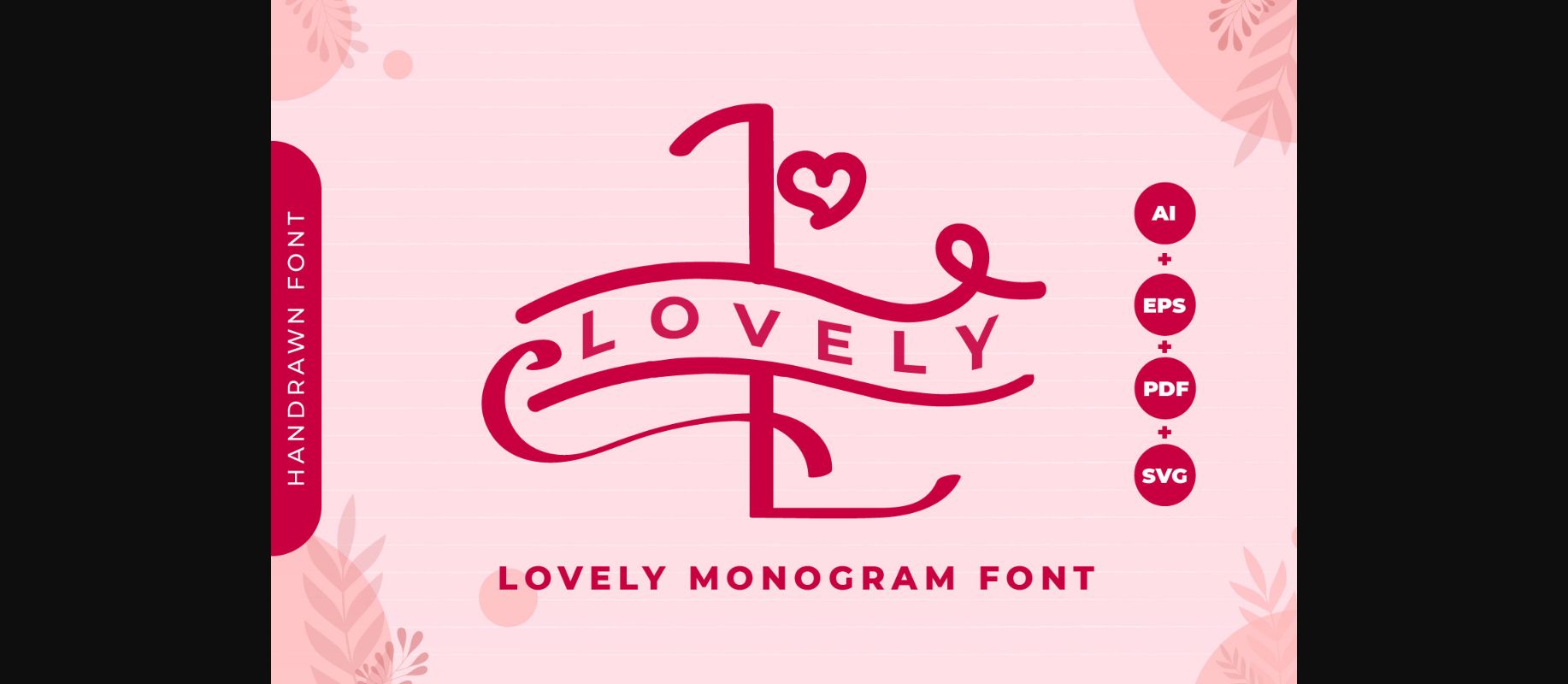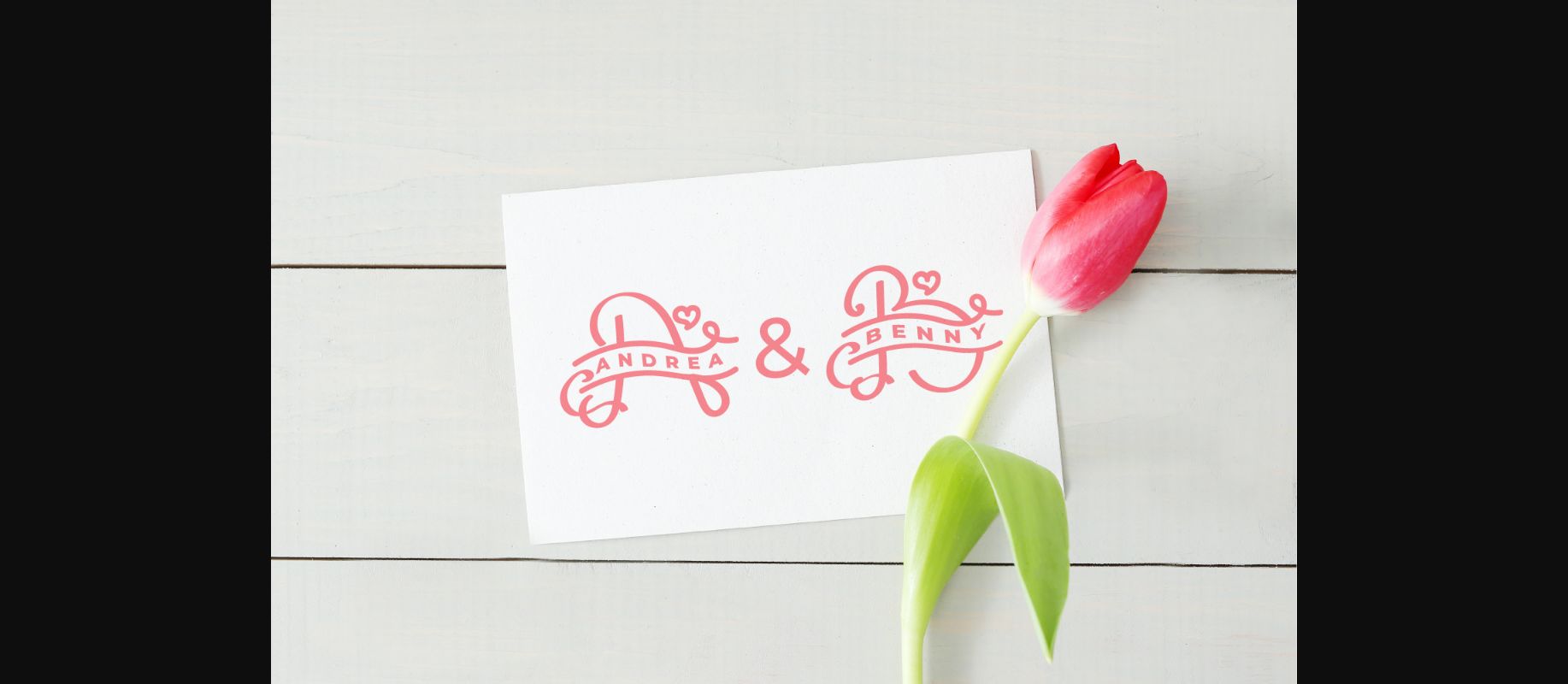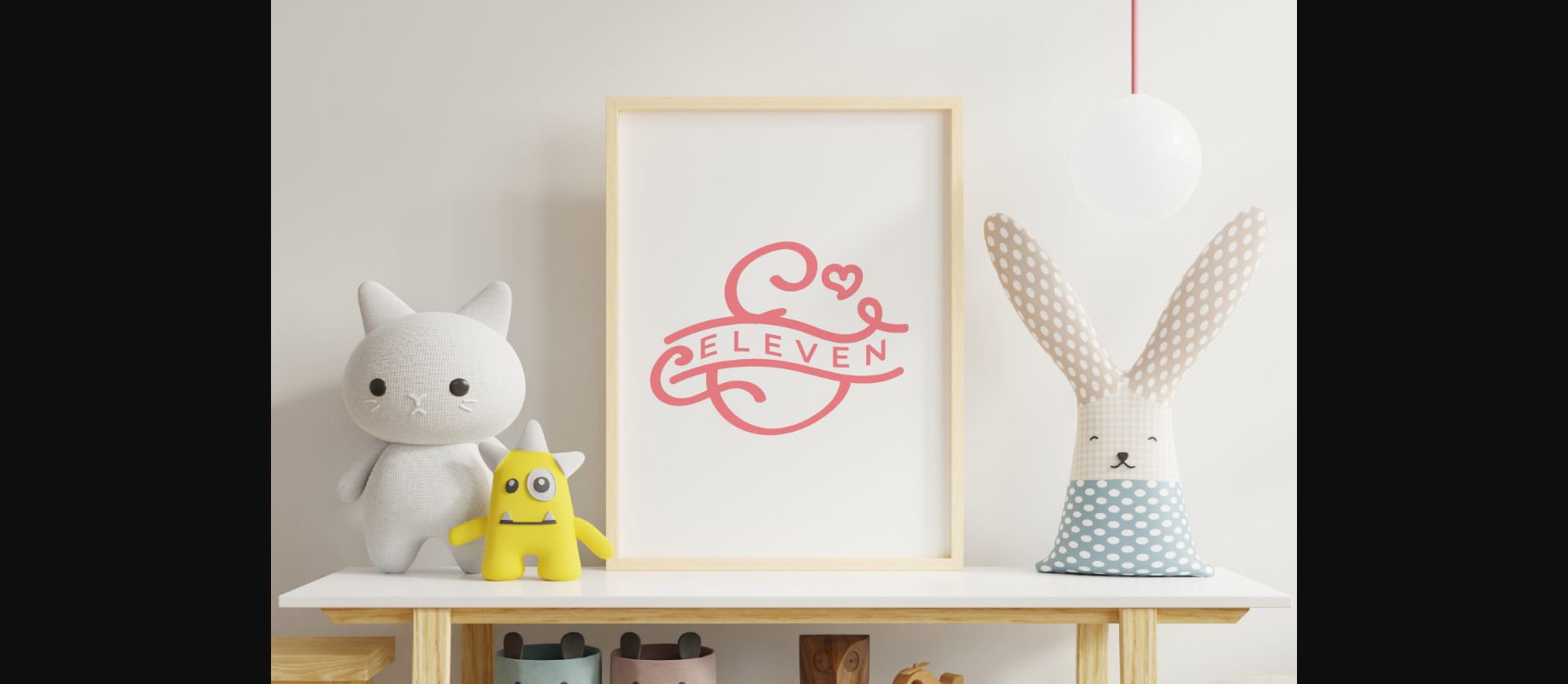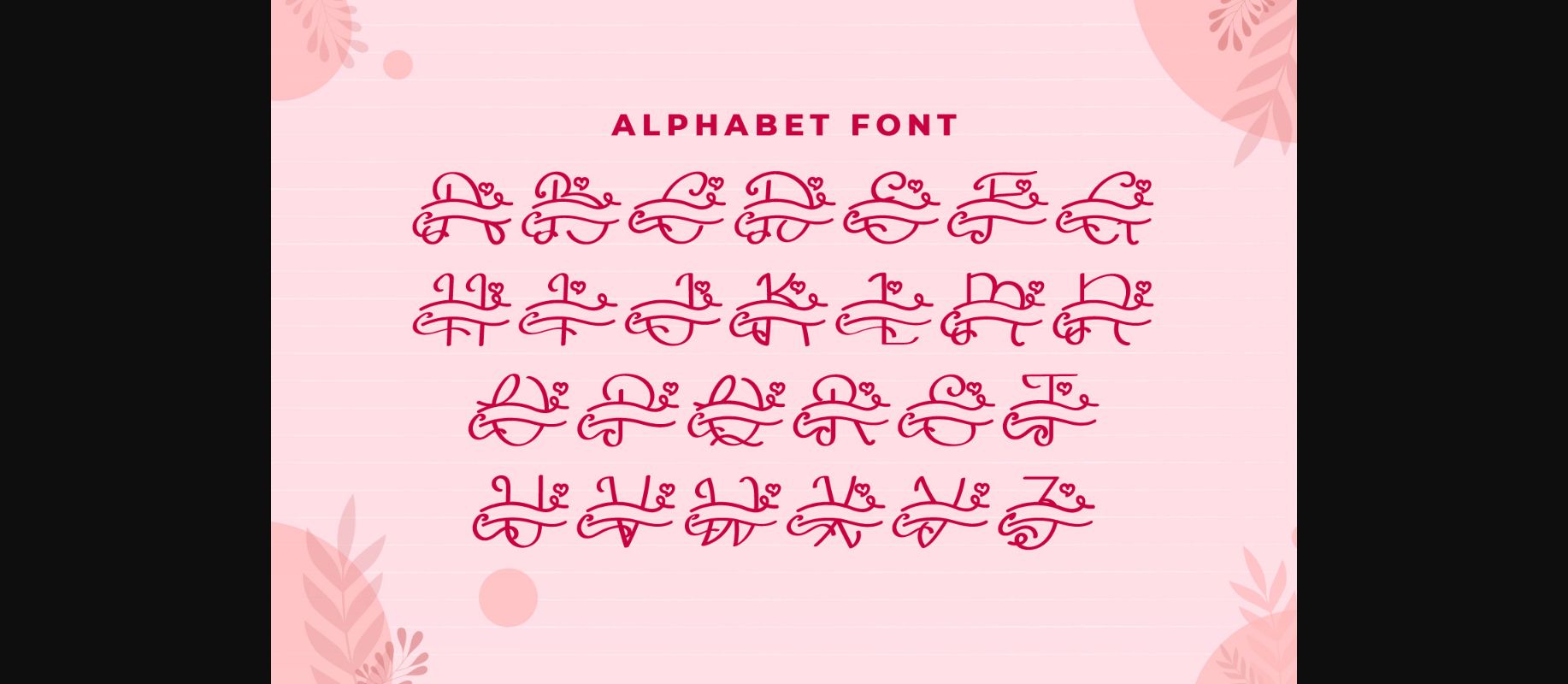
About Monogram Lovely Font
Monogram Lovely is a delicate decorative font. Add this romantic and lovely looking font to each of your love letters, wedding invitations or favorite design ideas, and you will be astounded by the outcome.